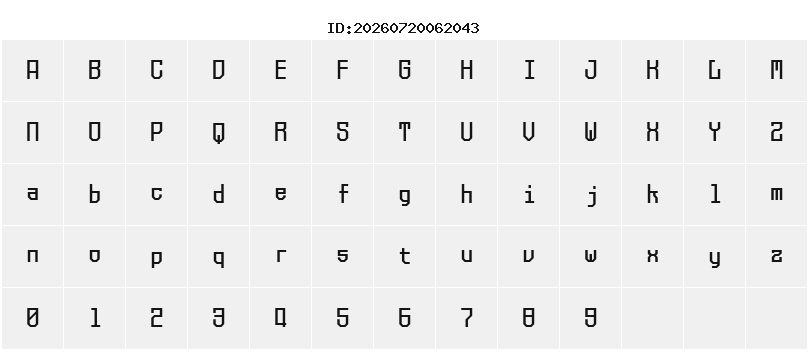
EQUIPMENT MONO Preview
• Font Name: EQUIPMENT MONO
• Full Font Name: EQUIPMENT MONO
About EQUIPMENT MONO.ttf
EQUIPMENT MONO.ttf is a modern, elegant sans-serif font designed for ultimate readability and visual harmony. Perfect for branding, headlines, web design, and print materials.